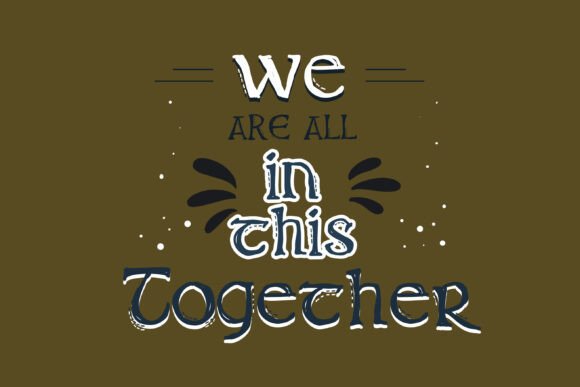
Celtic Stitches Font: A Hand-Crafted Typeface with a Crafty Feel
The Celtic Stitches Font is a unique and charming typeface that embodies the spirit of hand-crafted design. With its distinctive, hand-made look and stitches, this font is perfect for adding a touch of craftiness to any project. In this article, we’ll take a closer look at the Celtic Stitches Font, its characteristics, and how it can be used to enhance your designs.
What is a Hand-Crafted Font?
A hand-crafted font is a typeface that is designed to look like it was written by hand. It is often used for invitations, greeting cards, and other items where a personal touch is desired. Handwritten fonts can be either formal or informal, and they can be used for a variety of purposes. The Celtic Stitches Font is a prime example of a hand-crafted font, with its irregular lines and stitches that give it a distinctly handmade feel.
Characteristics of Hand-Crafted Fonts
Hand-crafted fonts like Celtic Stitches have several distinct characteristics that set them apart from other typefaces. Some of these characteristics include:
- Irregular lines: Hand-crafted fonts often have irregular lines and curves that give them a more organic, handmade feel.
- Stitches and texture: Many hand-crafted fonts, like Celtic Stitches, feature stitches or texture that adds to their handmade appearance.
- Unique letterforms: Hand-crafted fonts often have unique letterforms that are designed to look like they were written by hand.
- Emotional connection: Hand-crafted fonts can evoke an emotional connection with the reader, as they often convey a sense of warmth and personality.
The Celtic Stitches Font: A Closer Look
The Celtic Stitches Font is a beautiful example of a hand-crafted typeface. With its intricate stitches and irregular lines, this font has a distinctly handmade feel that is perfect for adding a touch of craftiness to any project. The font features a range of characters, including letters, numbers, and punctuation marks, all of which are designed to look like they were stitched together by hand.
Uses for the Celtic Stitches Font
The Celtic Stitches Font is a versatile typeface that can be used for a variety of purposes. Some of the most popular uses for this font include:
- Invitations: The Celtic Stitches Font is perfect for invitations, as it adds a touch of elegance and sophistication to any design.
- Greeting cards: This font is also great for greeting cards, as it conveys a sense of warmth and personality.
- Signs and posters: The Celtic Stitches Font can be used to create eye-catching signs and posters that are sure to grab attention.
- Digital designs: This font can also be used for digital designs, such as social media graphics and blog posts.
Tips for Using the Celtic Stitches Font
Here are a few tips for using the Celtic Stitches Font in your designs:
Choose the Right Size
When using the Celtic Stitches Font, it’s essential to choose the right size for your design. This font looks best when used at a moderate size, around 24-36 points. Using it at a smaller size can make the stitches and irregular lines difficult to read.
Pair it with Other Fonts
The Celtic Stitches Font can be paired with other fonts to create a unique and visually appealing design. Try pairing it with a sans-serif font, such as Arial or Helvetica, to create a nice contrast.
Experiment with Colors
The Celtic Stitches Font looks great in a variety of colors, from bright and bold to muted and subtle. Experiment with different colors to find the one that works best for your design.
The Celtic Stitches Font is a beautiful and versatile typeface that can add a touch of craftiness to any design. With its intricate stitches and irregular lines, this font has a distinctly handmade feel that is perfect for invitations, greeting cards, and other items. By following the tips outlined in this article, you can use the Celtic Stitches Font to create stunning designs that are sure to impress.
- What is the Celtic Stitches Font? The Celtic Stitches Font is a hand-crafted typeface that features intricate stitches and irregular lines.
- What is the best use for the Celtic Stitches Font? The Celtic Stitches Font is perfect for invitations, greeting cards, and other items where a personal touch is desired.